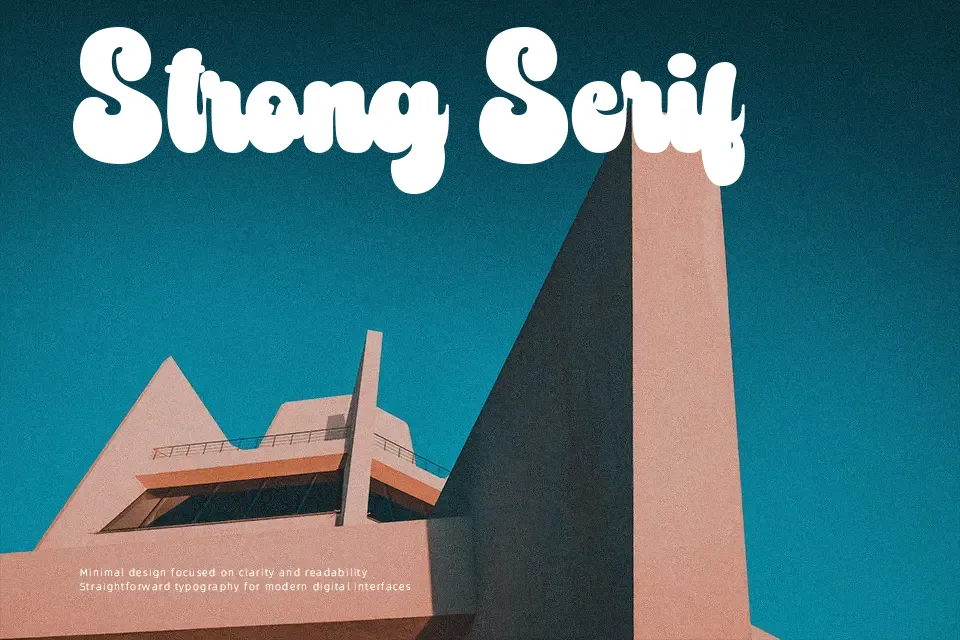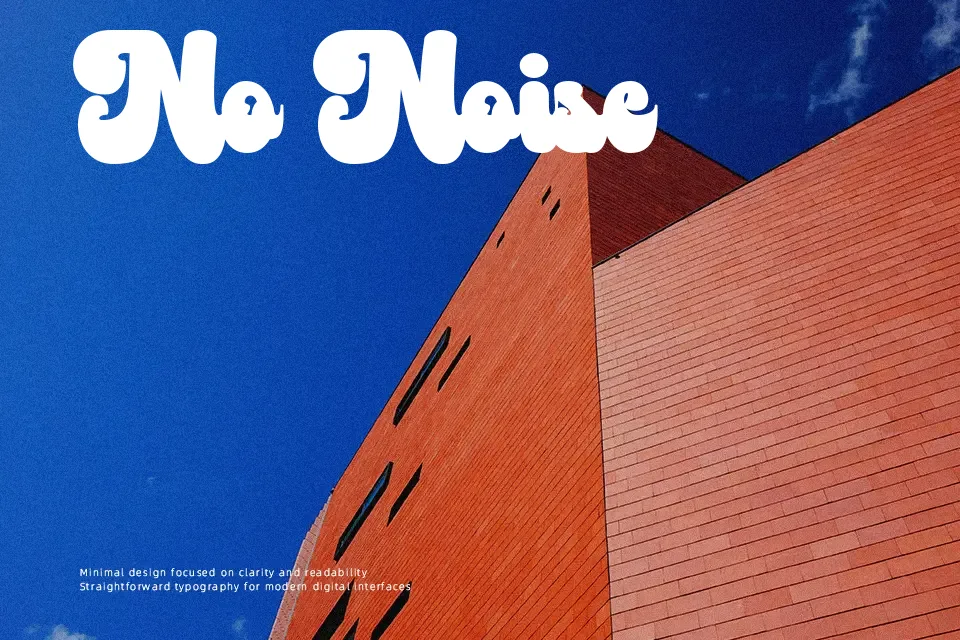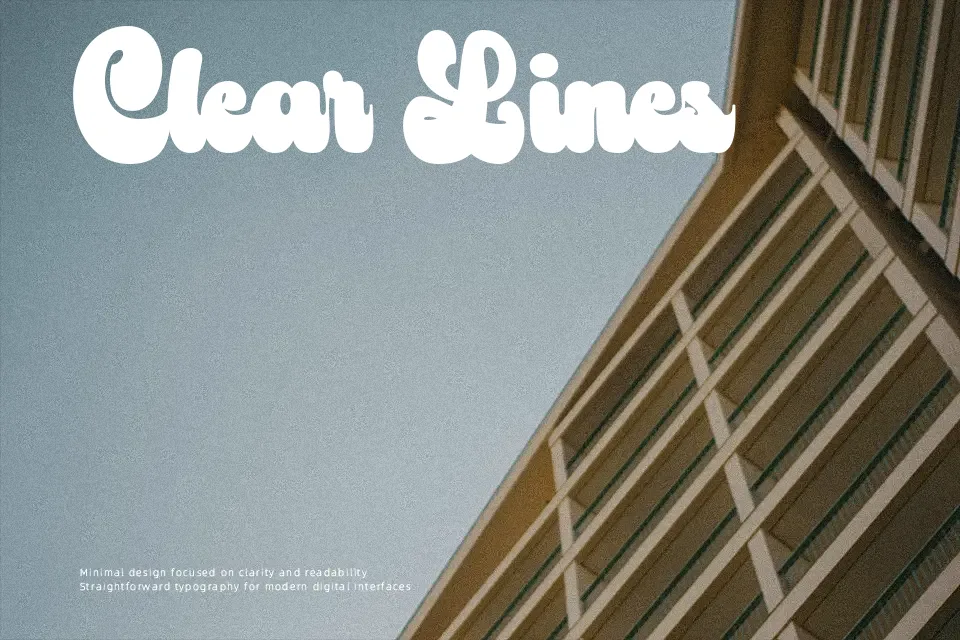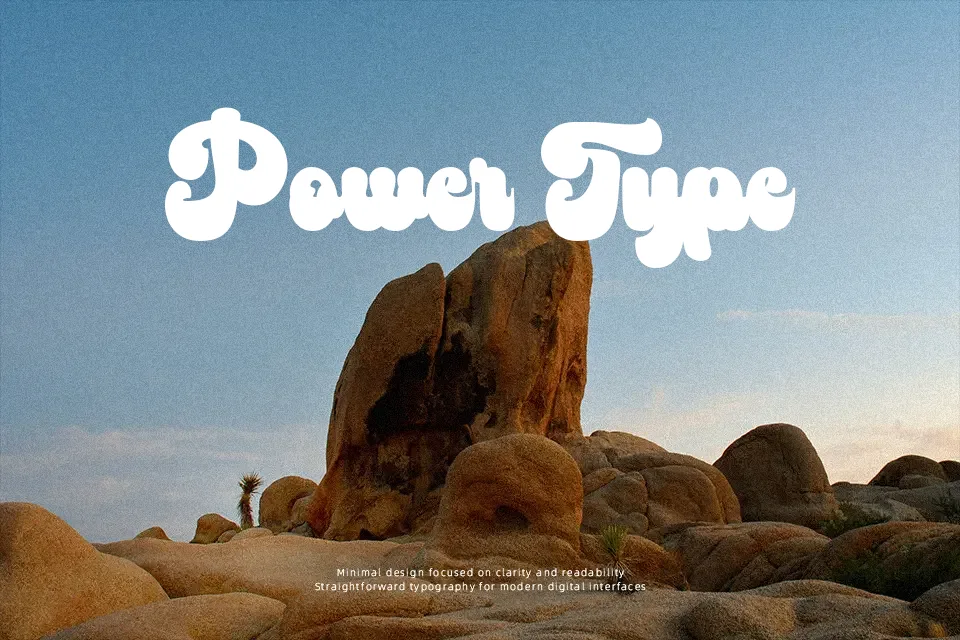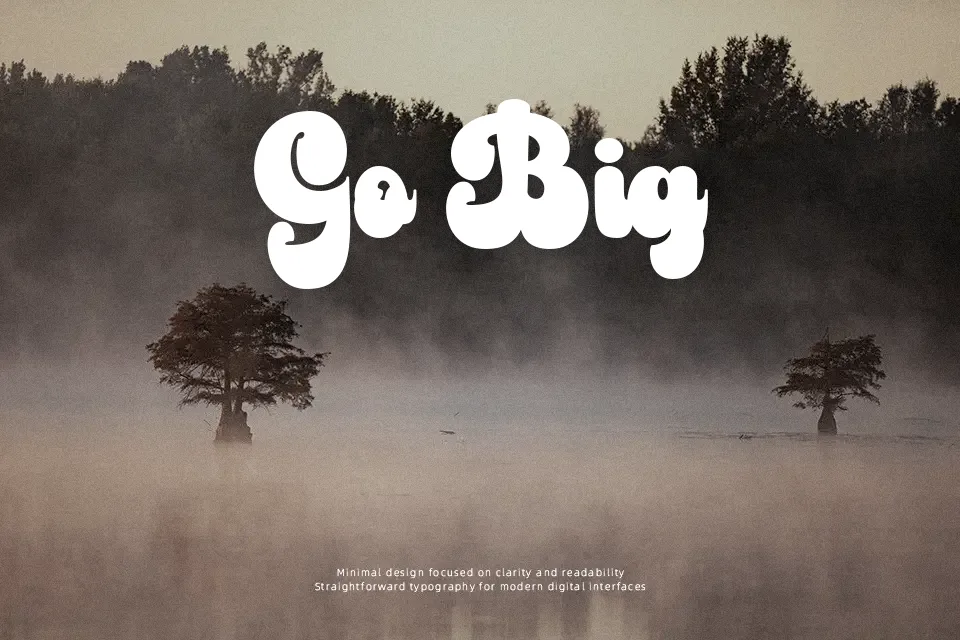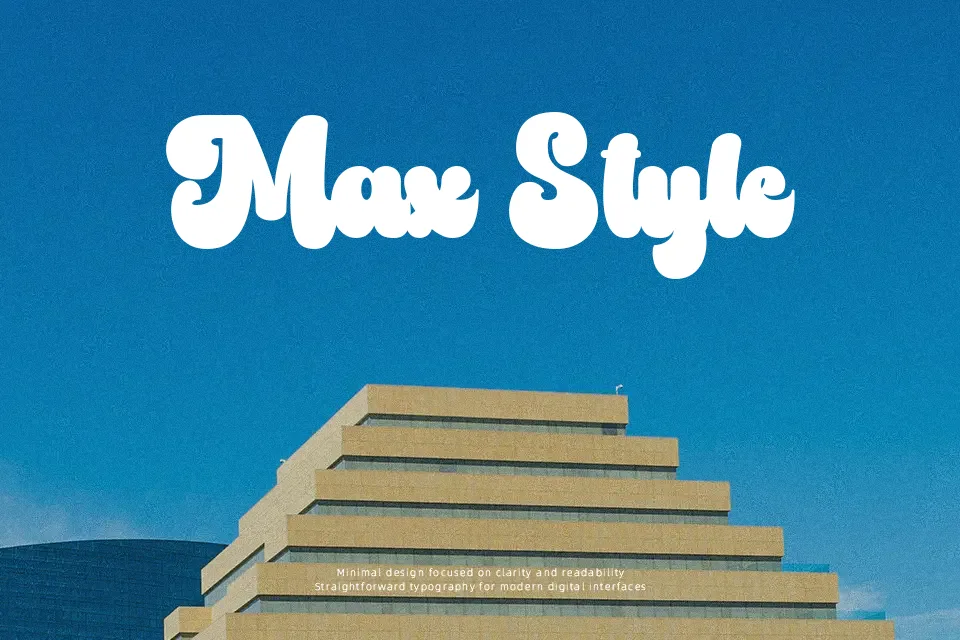
Boldy Vintage Font
Designed by Din Studio
Boldy Vintage is a dynamic, thick script typeface that embraces a lively bubble-letter style. Its hefty, hand-drawn strokes and smooth curves deliver an energetic, modern aesthetic rooted in retro street culture. The letterforms remain highly legible despite their weight, bringing warmth and approachability to your canvas. This typography excels when deployed as the focal point in casual branding projects, vibrant social media campaigns, and bold restaurant menus. Its playful nature naturally draws the eye, making it highly effective for large-scale display applications. However, due to its heavy weight and informal structure, it falls short when applied to dense body text or corporate documents where a serious, minimalist tone is strictly required.
Eye-catching logos and casual brand identities
Vibrant social media graphics and banners
Playful packaging and large statement headlines
Long paragraphs or dense editorial layouts
Corporate, legal, or formal academic documents
Small-scale digital user interface elements